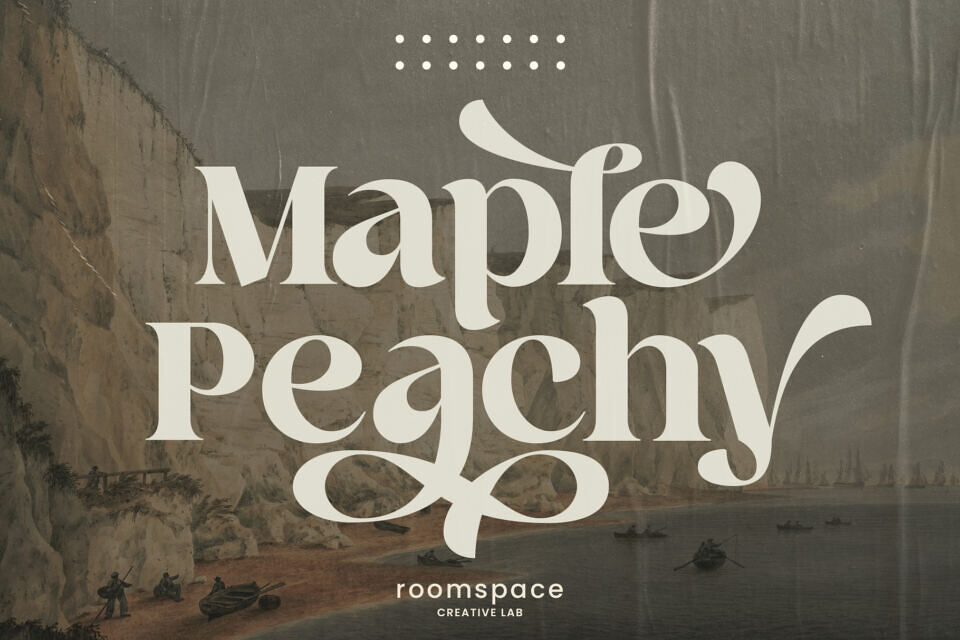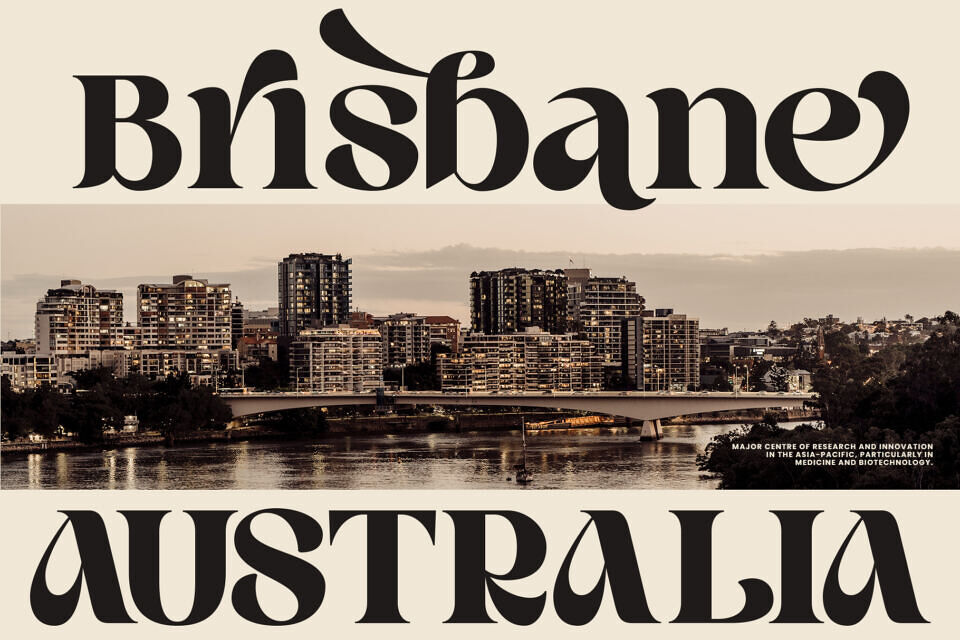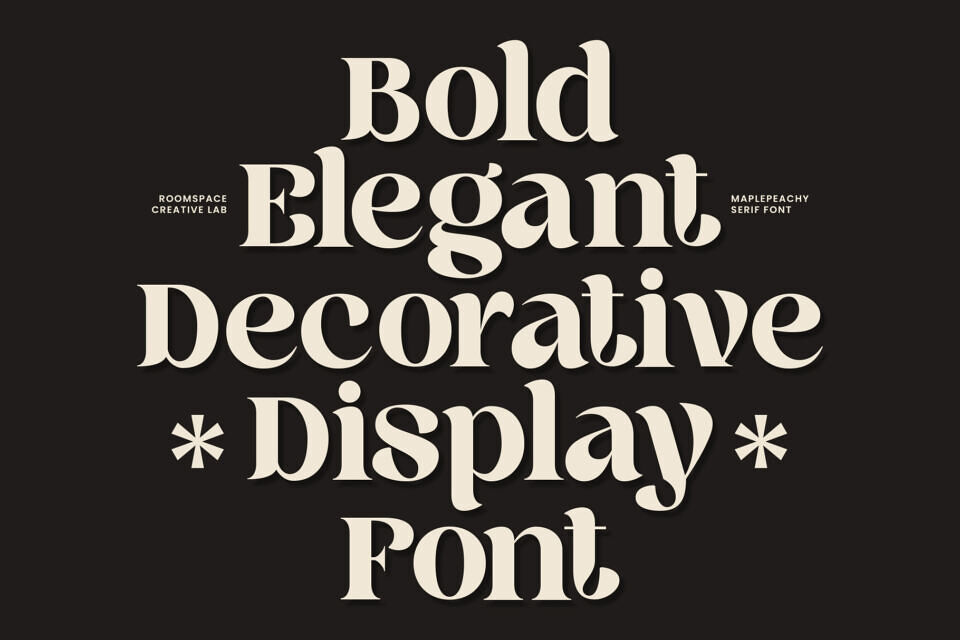
Maple Peachy is a stylish and modern retro font perfect for making a statement! Featuring elegant tail swashes, this stunning font is versatile and perfect for creating graphic designs, branding materials, and more.
Whether you’re looking to create eye-catching logos, monograms, or headlines, this modern retro font will be the perfect addition to your design arsenal. With its unique vintage character, Maple Peachy offers a timeless look that won’t go unnoticed.